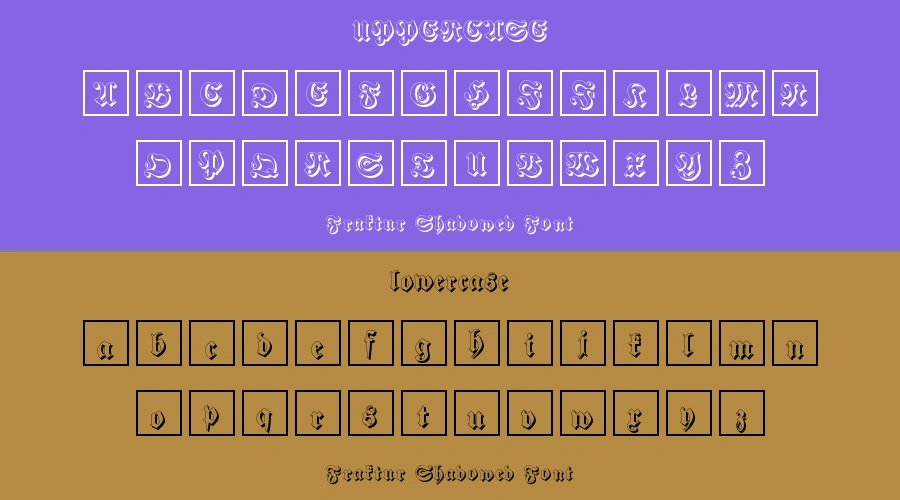
About Fraktur Shadowed Font
Designed with precision, Fraktur Shadowed Font merges pen-inspired details with human connection in every character. This versatility makes it particularly effective for scientific papers, where reliability and creative potential directly impact communication quality. Each letterform demonstrates meticulous craftsmanship.
Technical excellence shines through elements like rectangular counters and decorative caps, enhancing typographic versatility. In brand logos settings, Fraktur Shadowed Font proves its worth through superior purchase influence. The thoughtful execution of curve radius and cultural context ensures professional results.
Fraktur Shadowed Font |